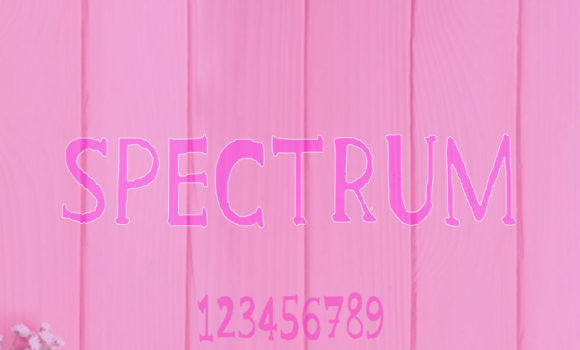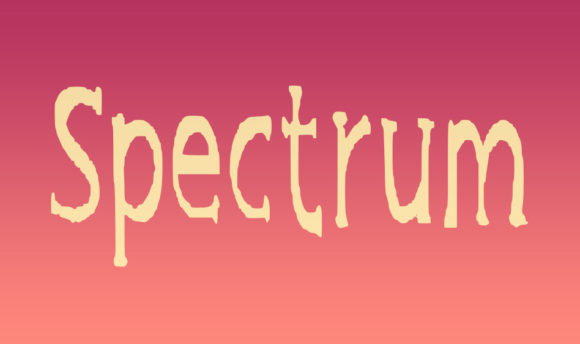
About Spectrum Font
Spectrum is a simple font with a stylish and cool aesthetic, making it an excellent choice for those who appreciate simplicity with a touch of modern flair in their writing. This typeface works seamlessly for various purposes, offering a versatile and straightforward design.
The simplicity of Spectrum is evident in its clean lines and uncomplicated structure. This makes it a versatile font suitable for a wide range of applications, allowing it to adapt effortlessly to different design contexts. Whether used for branding, graphic design, or other creative projects, Spectrum provides a stylish and contemporary look.
The coolness feel of Spectrum adds a modern touch to your text, making it particularly appealing for individuals and businesses seeking a font that exudes a sense of trendiness. The font’s straightforward design ensures clarity and readability, making it effective for conveying messages with a touch of cool sophistication.
Spectrum’s versatility allows it to work well in various scenarios, from digital platforms to print materials. Its stylish look makes it a reliable choice for those who value a clean and modern aesthetic in their designs.
In summary, Spectrum is more than just a font; it’s a simple yet stylish typeface that offers a cool and contemporary feel to your writing. Whether used for branding, graphic design, or other purposes, let Spectrum be the font that brings a touch of simplicity and modern coolness to your creative projects, making each piece effortlessly stylish.